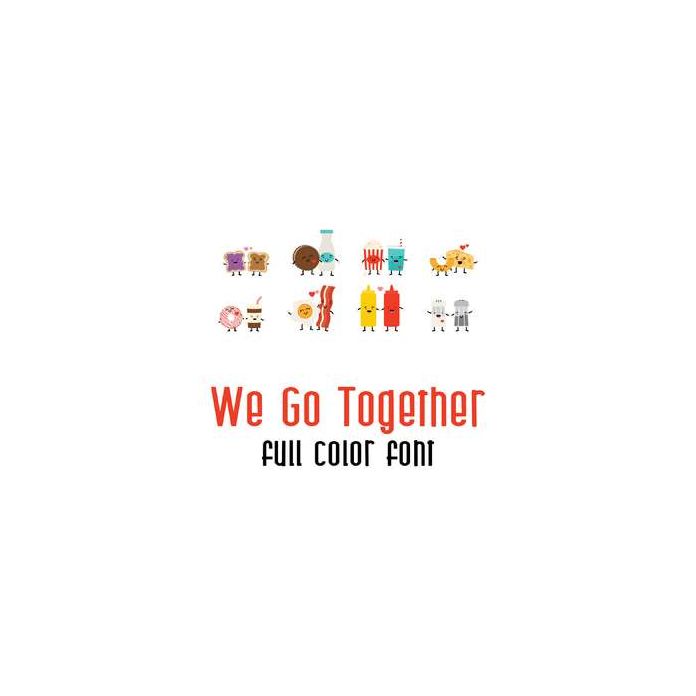
This adorable full color doodlebat font features perfect foodie pairs. Create adorable Valentines, cards, crafts, gifts, decor, scrap book pages, planner stickers and more!